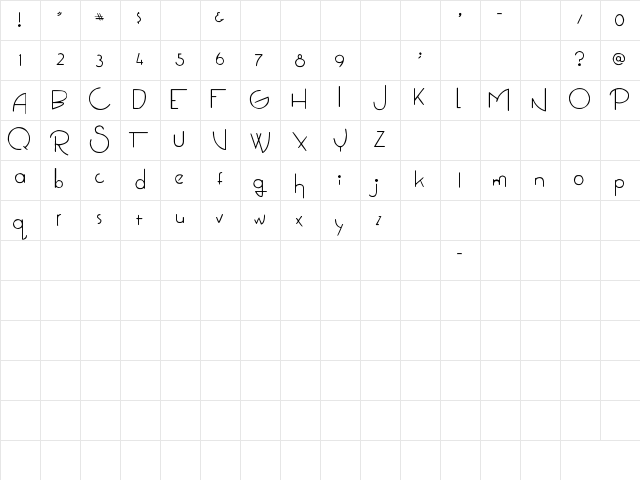
Do I like Stripes? Regular
Design Context for Do I like Stripes? Typeface
Do I like Stripes? is a composed and adaptable typeface that performs quietly and consistently across a wide range of design contexts.
Pro Tip: Use Do I like Stripes? in both headline and body roles to test its range before committing to a single application.